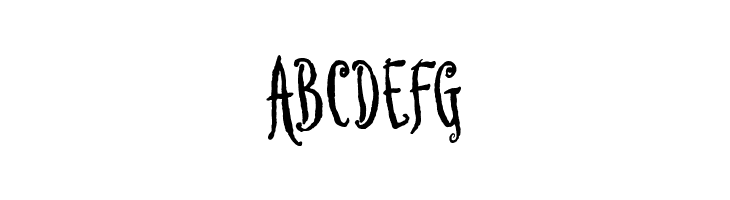
RuniK50-Normal Font
( Fonts by Astigmatic One Eye Typographic Institute - Brian J. Bonislawsky - astigmatic.com )
A whimsical, hand-drawn font with irregular, artistic strokes.